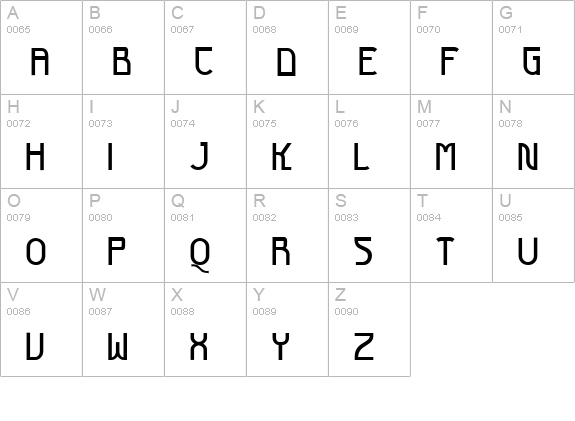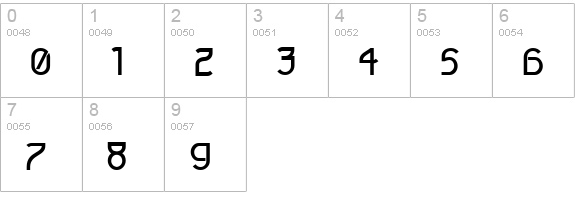
Futurex Bold is a strong, high-contrast variant in the Futurex typeface family \xE2\x80\x94 well suited to headlines, attention-grabbing titles, and strong calls-to-action.
Futurex Bold is a dynamic and modern font that exudes confidence and style. With its bold and eye-catching design, this typeface is perfect for making a statement in your projects. The sleek lines and strong curves of Futurex Bold add a touch of sophistication to any text, making it perfect for headlines, logos, and branding materials. What sets Futurex Bold apart is not only its striking appearance but also the fact that it is available for free download at FontsMarket.com. This means that you can easily access this versatile font and use it in your designs without any cost. Whether you are working on a professional project or simply looking to enhance your personal creations, Futurex Bold is the ideal choice for adding a touch of flair and elegance. Download this font today and elevate your typography game with ease.